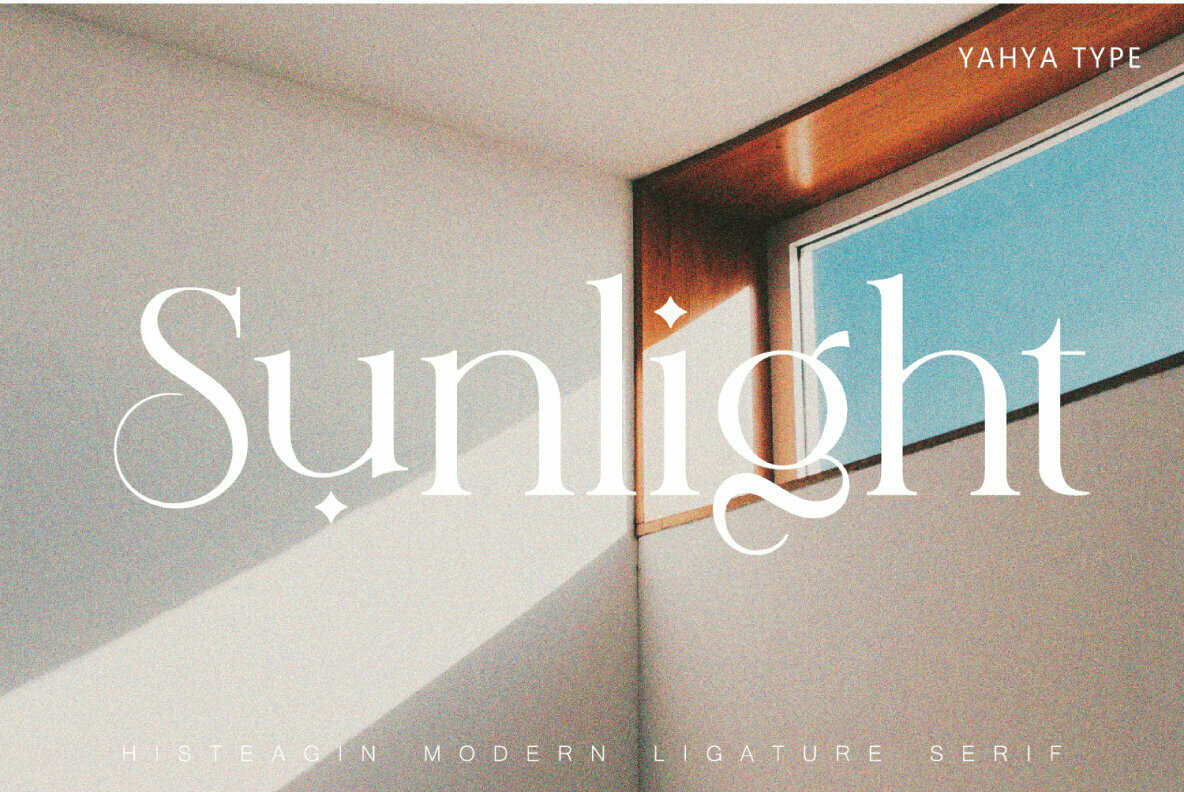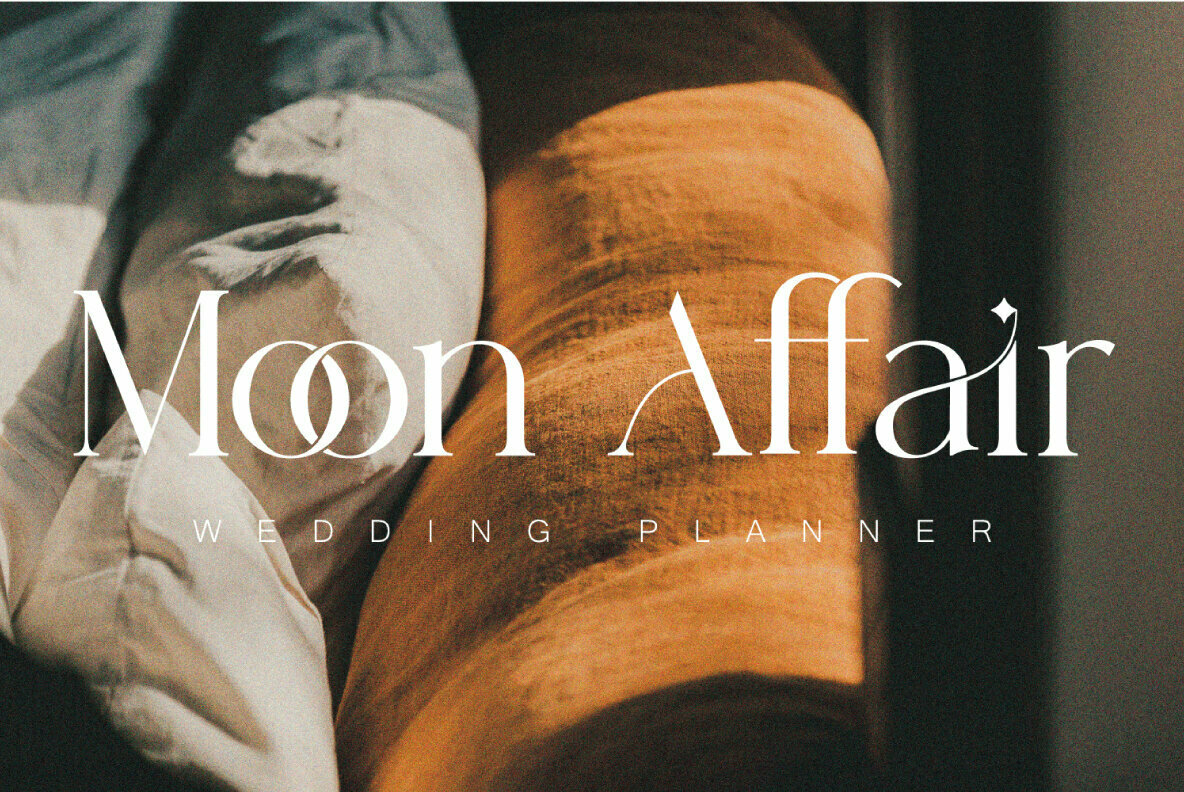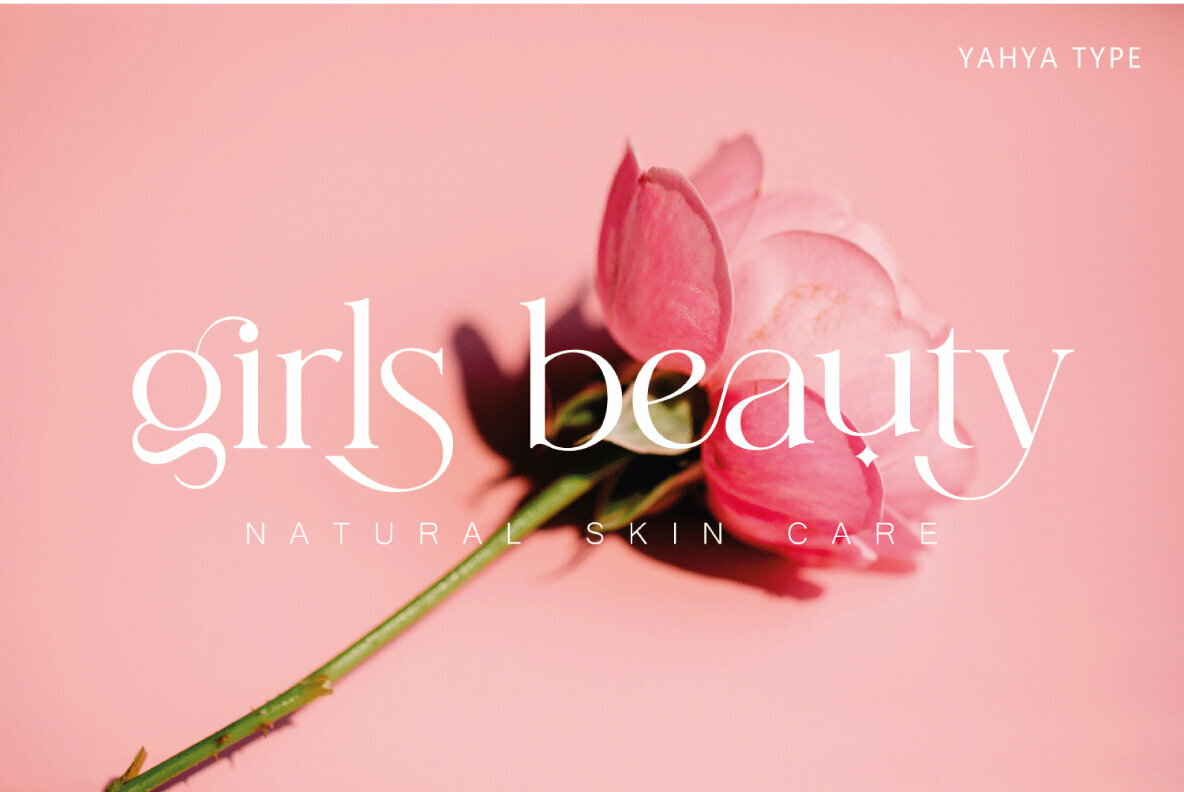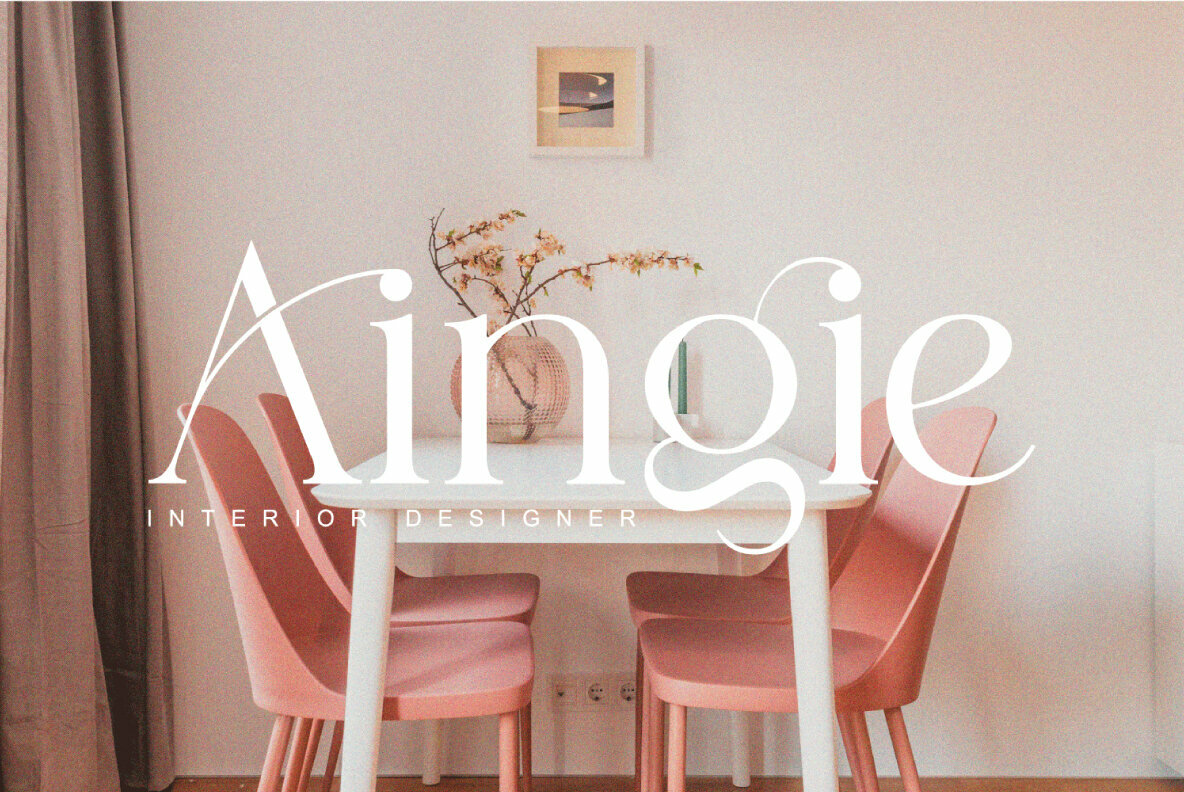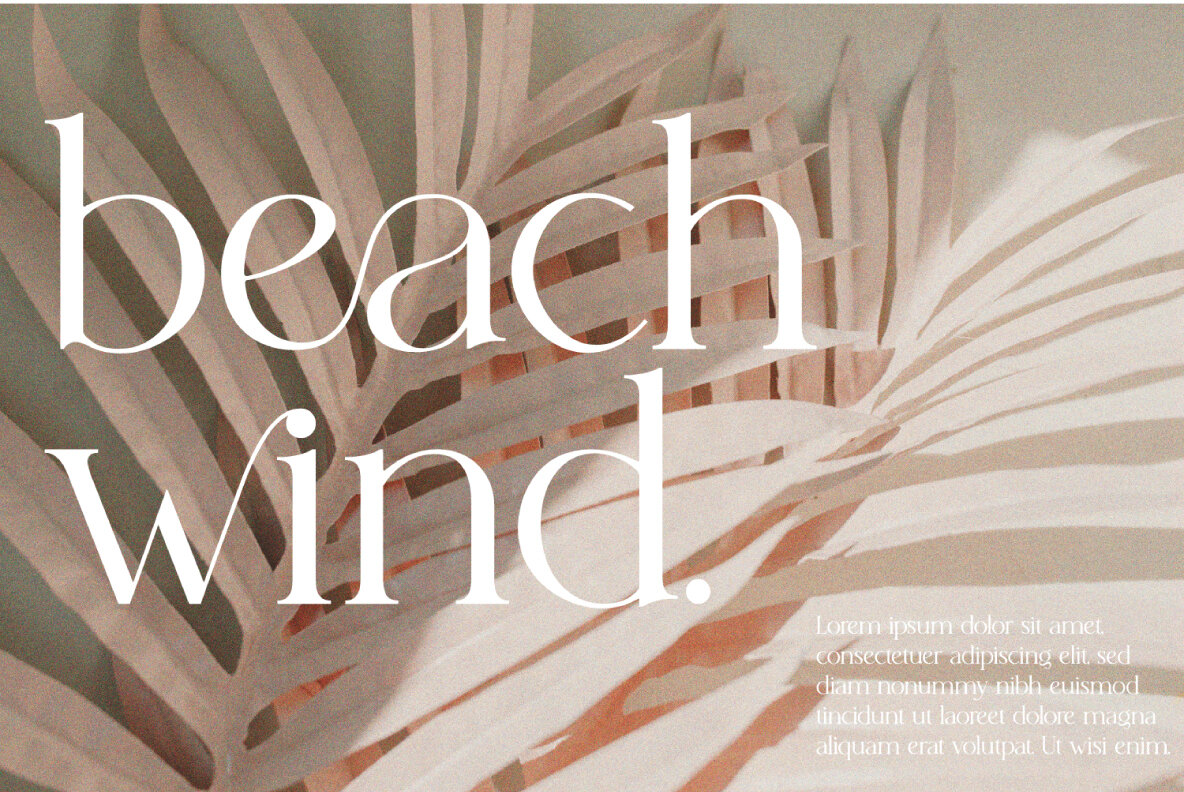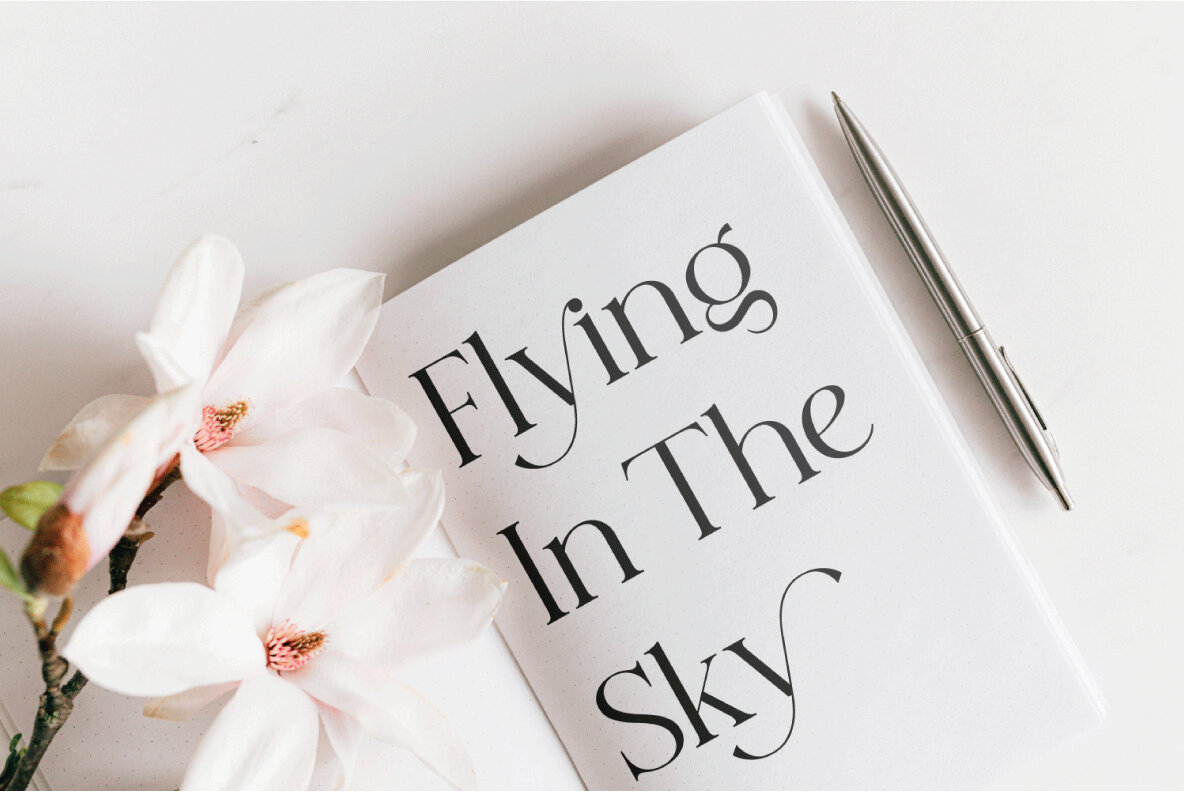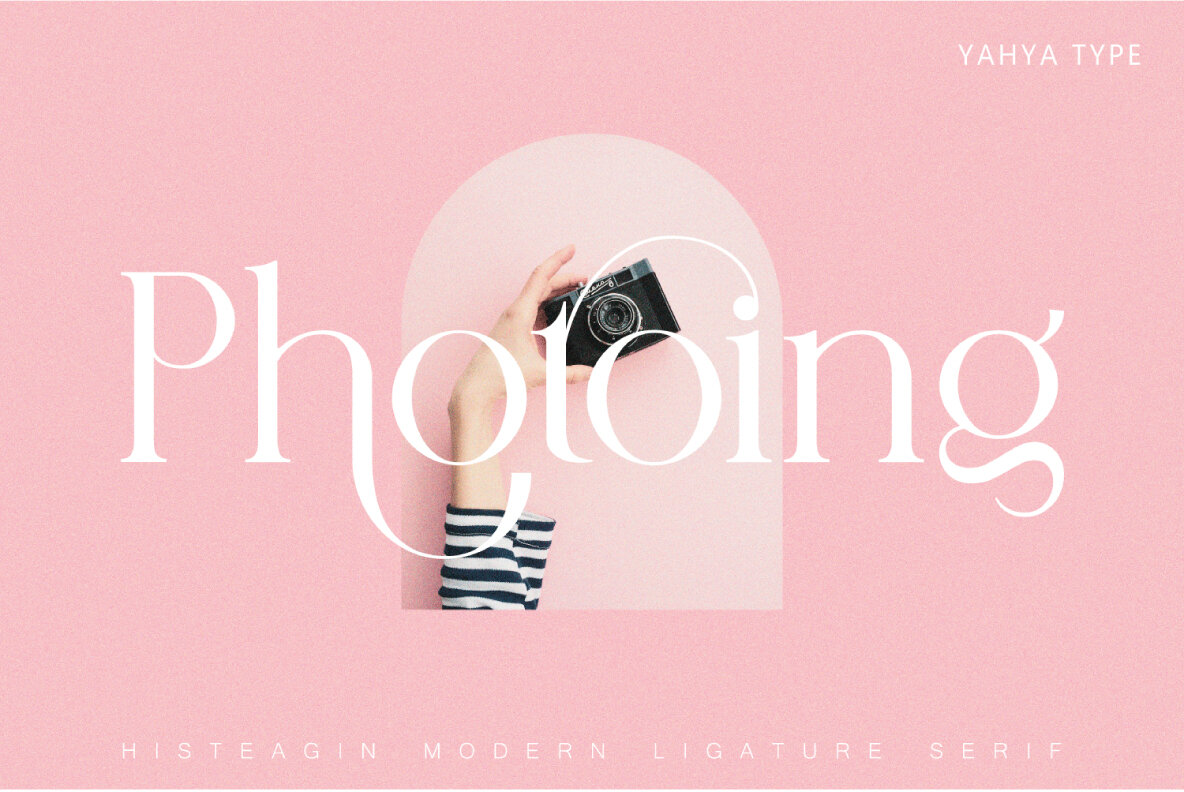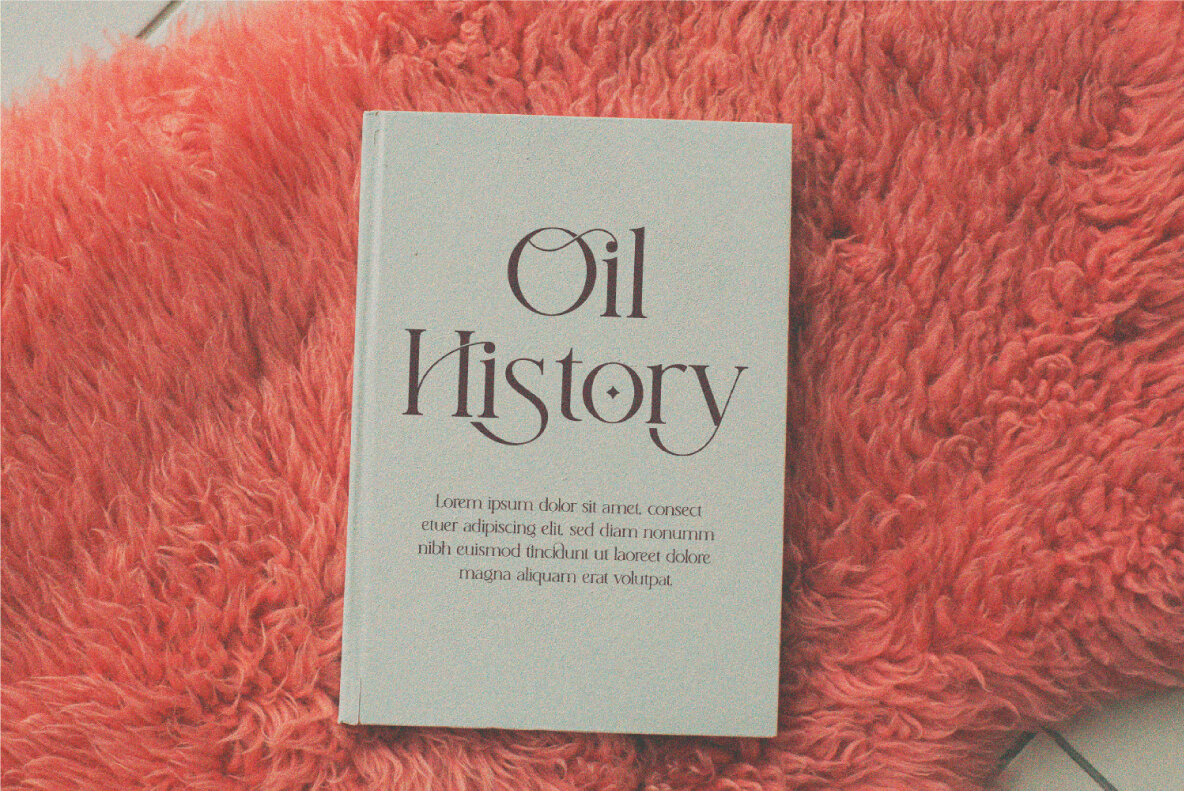
Histeagin Font
Histeagin offers a sophisticated option for designers looking to infuse elegance into their projects. Its distinctive curves and alternative characters make it suitable for a range of applications, from branding projects to wedding designs. Enhance your visual identity with a font that speaks to both style and functionality.Histeagin: Fancy Serif with Distinctive Curves